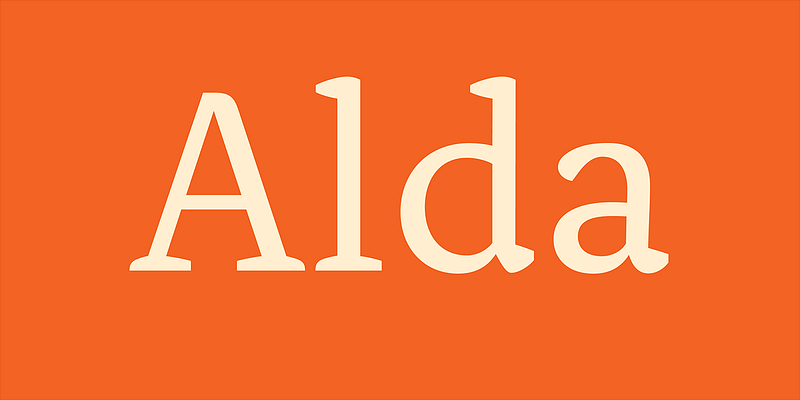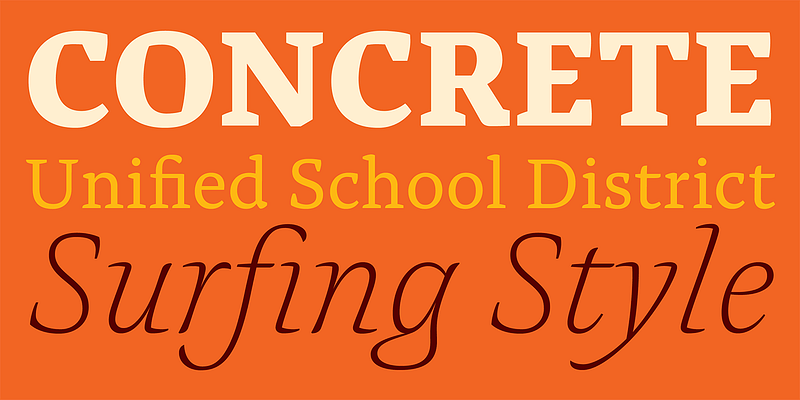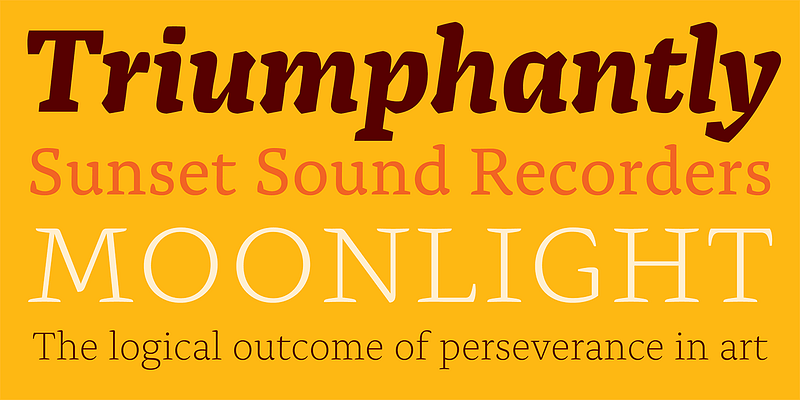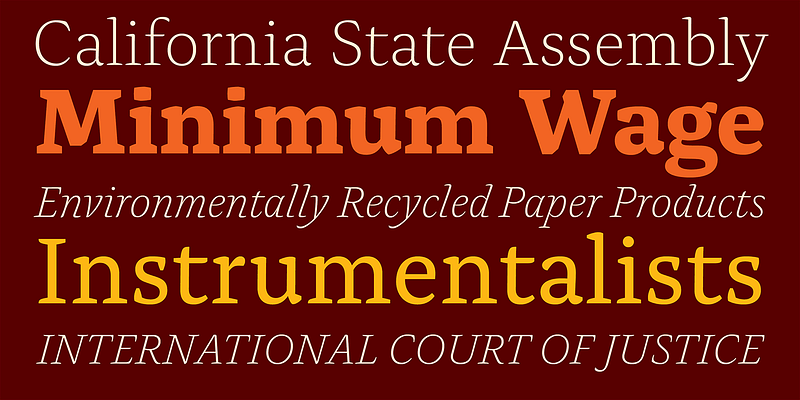
Alda was designed in 2008. The original idea for Alda came from exploring an alternative approach to generating different typeface weights by adapting the characteristics of physical objects. Initially Hasebe took this treatment very literally, with the boldest weight expressing the tension of bent steel, and the lightest being as spineless as a rubber band. This allowed him to infuse each weight with unique characteristics, where the bold is robust and angular, and the light is delicate and soft.